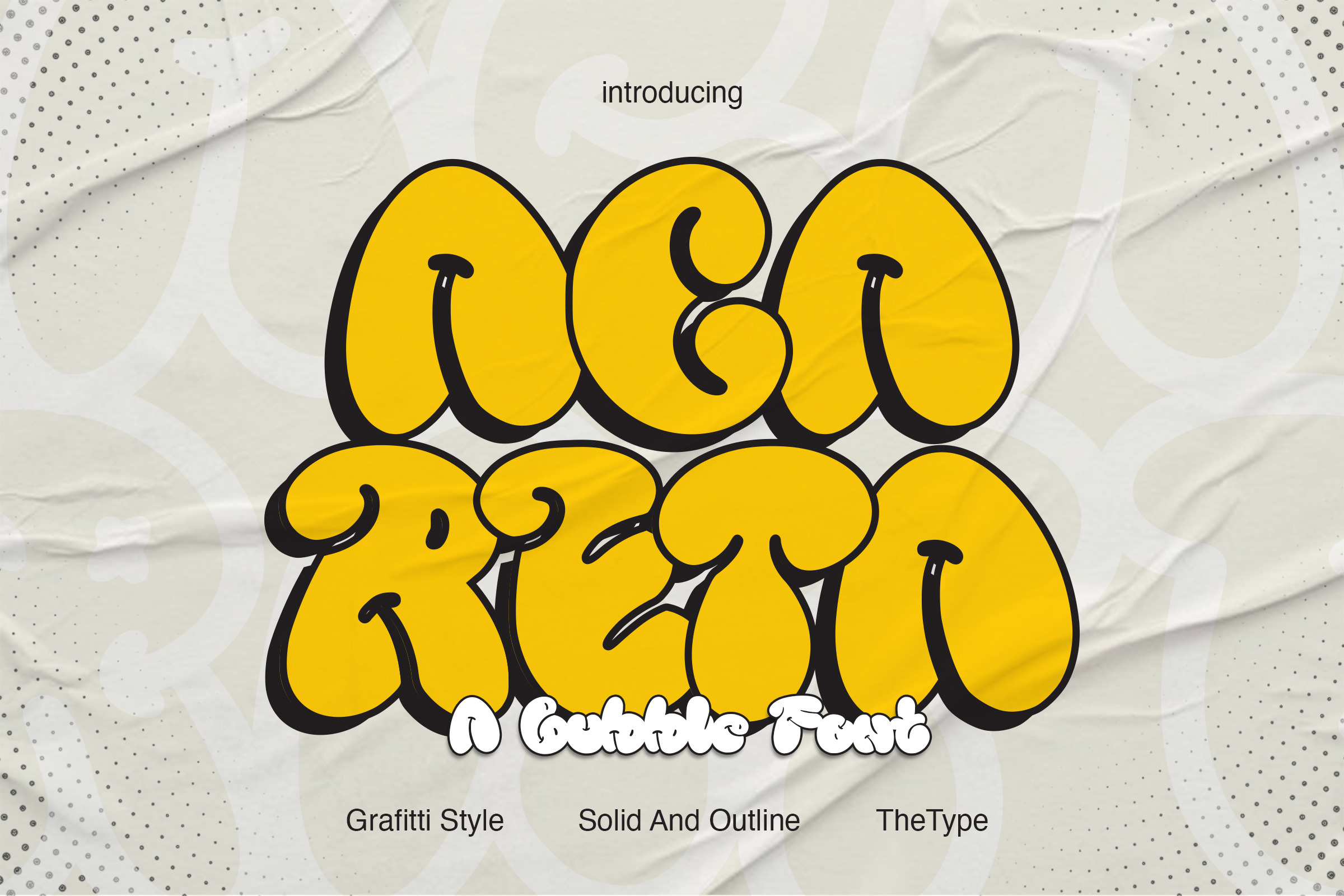
ACARETA | Groovy Display Typeface
ACARETA - Stylized Rounded Groovy Display Font. This font can look more attractive typeface, which is perfect for texts. So same he can be more expressive, playing and more modern, try to play with them and you will get the uniqueness in your project.
- Outline